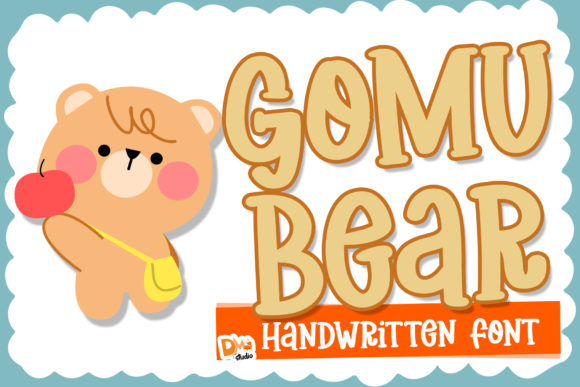
Are you ready to sprinkle some cheer and sweetness into your designs? Meet Gomu Bear, the playful and delightful display font that will transform your creative visions into enchanting realities. Inspired by the world's most beloved gummy bears, this font exudes a charm that's simply irresistible.
Gomu Bear is more than just a font; it's an adventure waiting to be explored. Let your imagination run wild as you craft whimsical invitations, vibrant posters, eye-catching social media graphics, or heartfelt greeting cards. The possibilities are endless, and the results will be nothing short of magical.
With Gomu Bear by your side, you'll embark on a journey where every letter dances with joy and every word bursts with personality. Its friendly curves and playful spirit will elevate your designs to new heights, leaving a lasting impression on all who encounter them.
So, whether you're a seasoned designer seeking a touch of whimsy or a beginner looking to make a statement, Gomu Bear is the perfect companion for your creative endeavors. Don't let this opportunity pass you by; seize the chance to add a sprinkle of sweetness to your designs today!